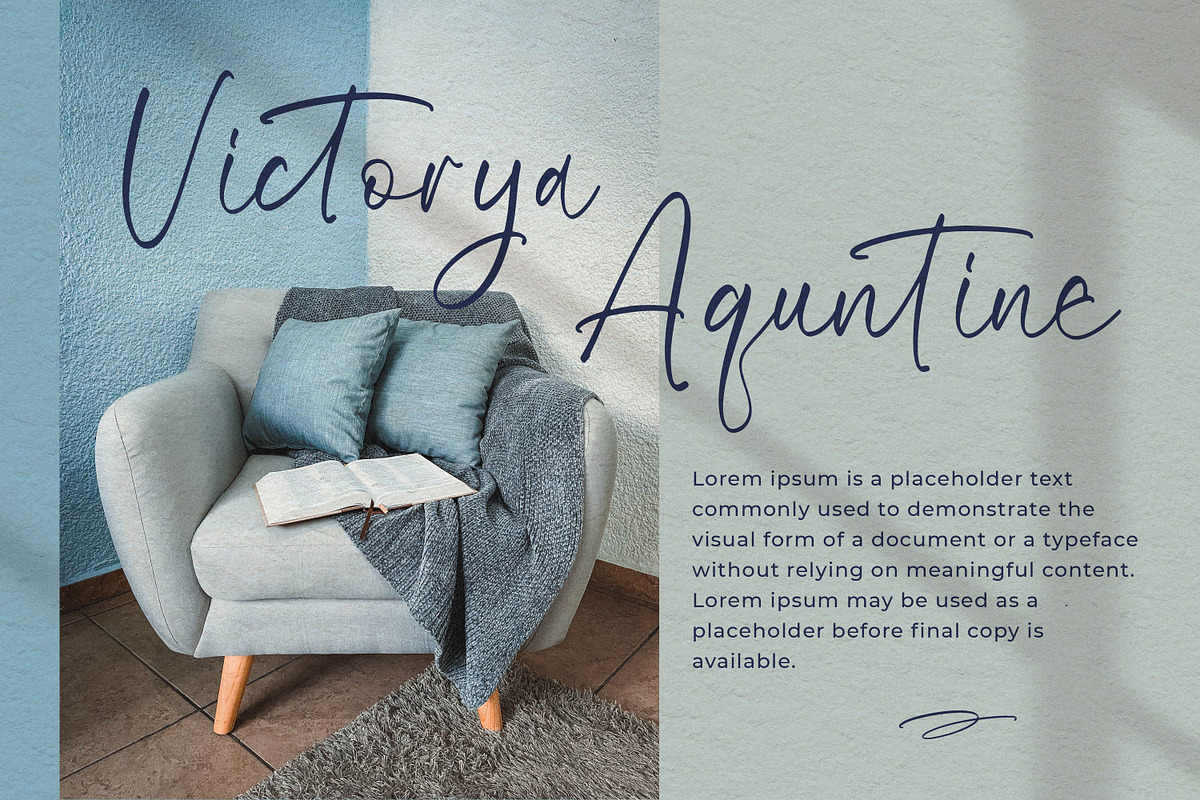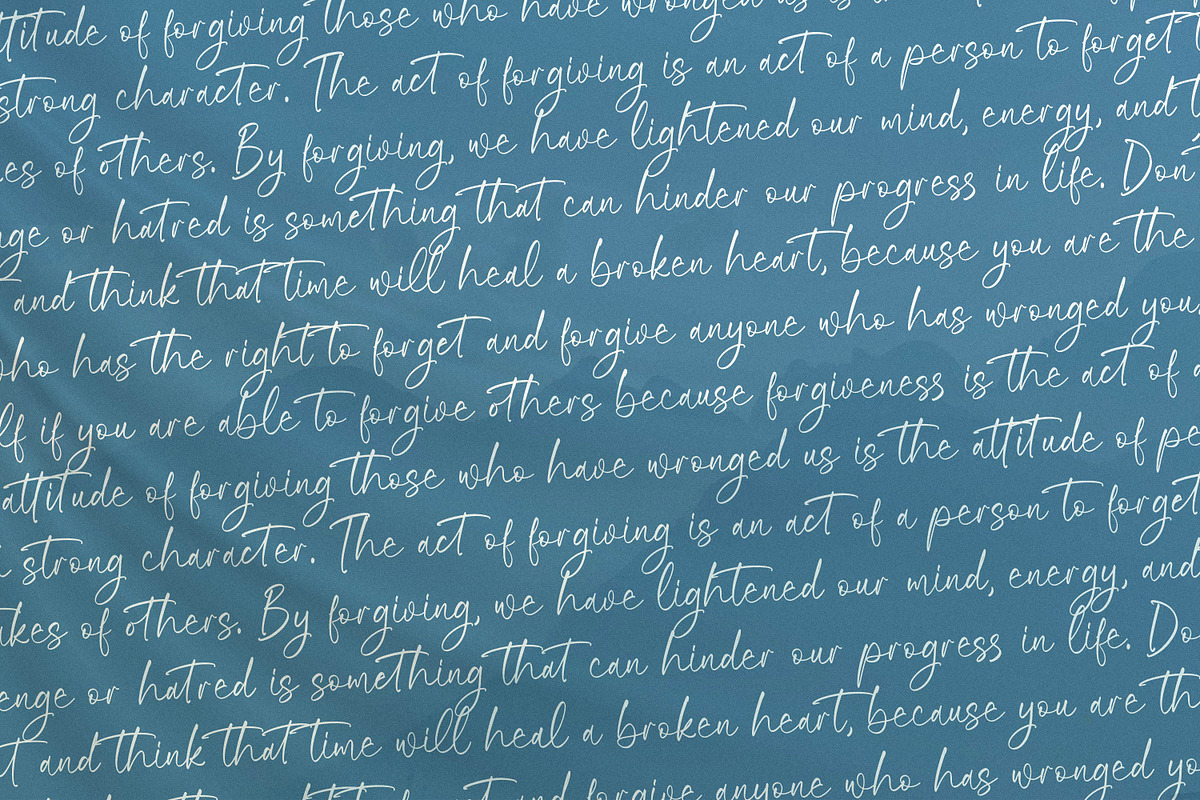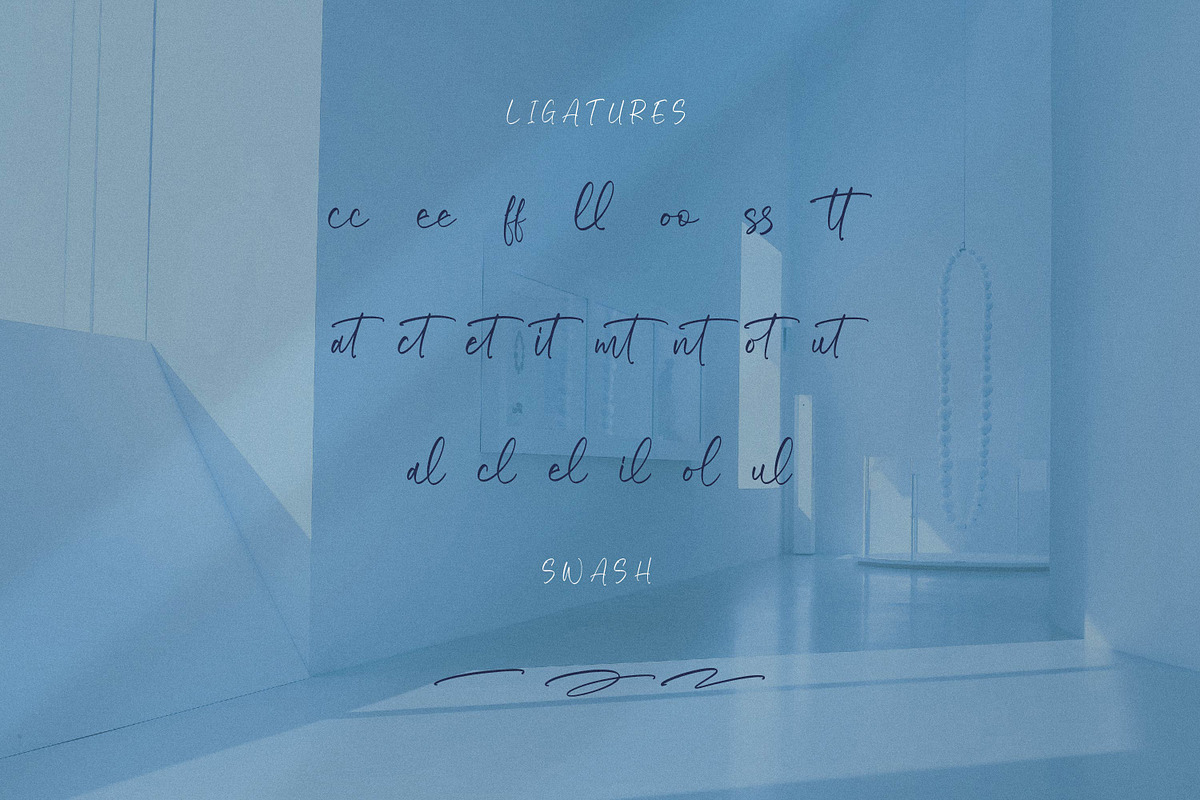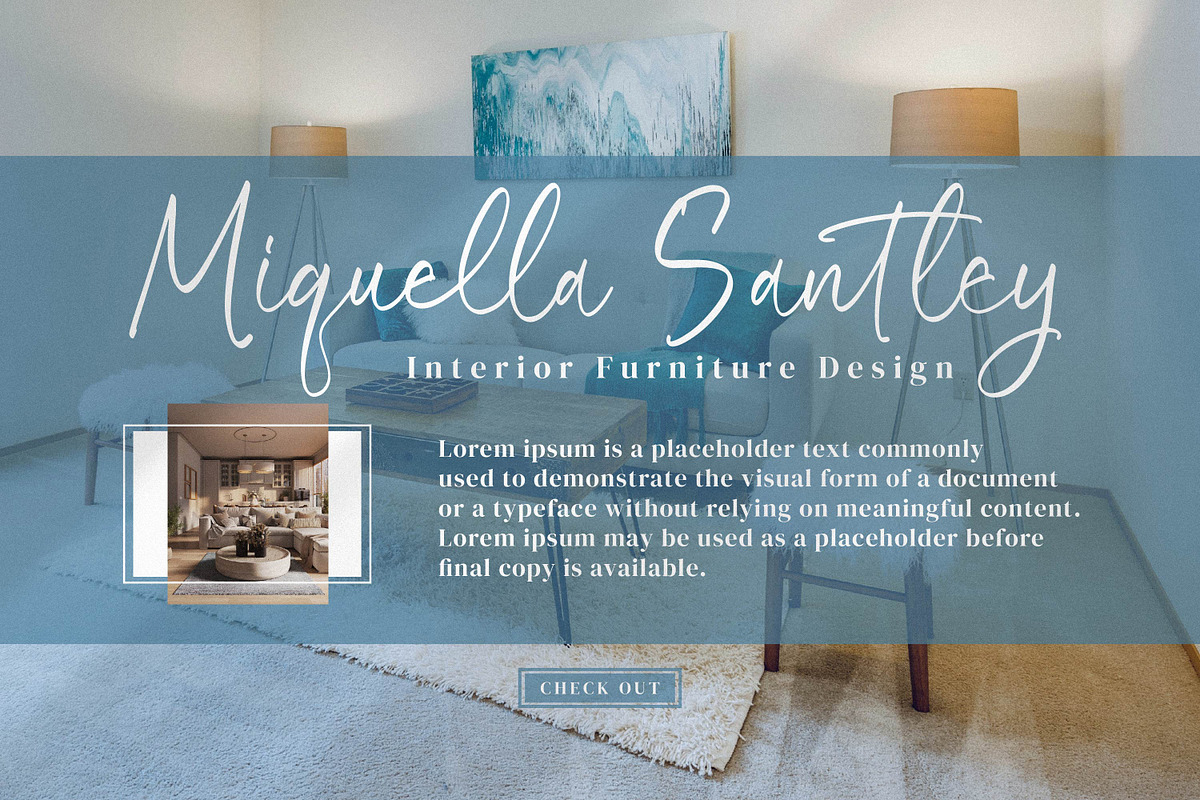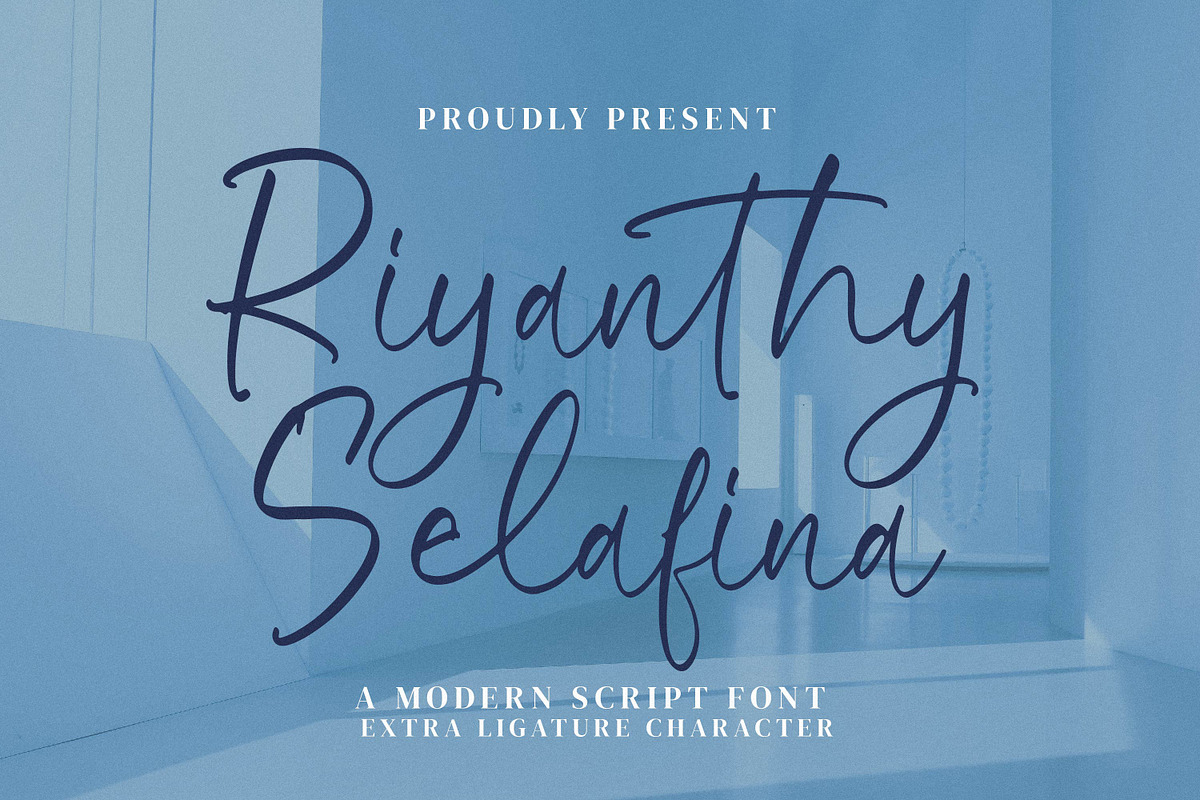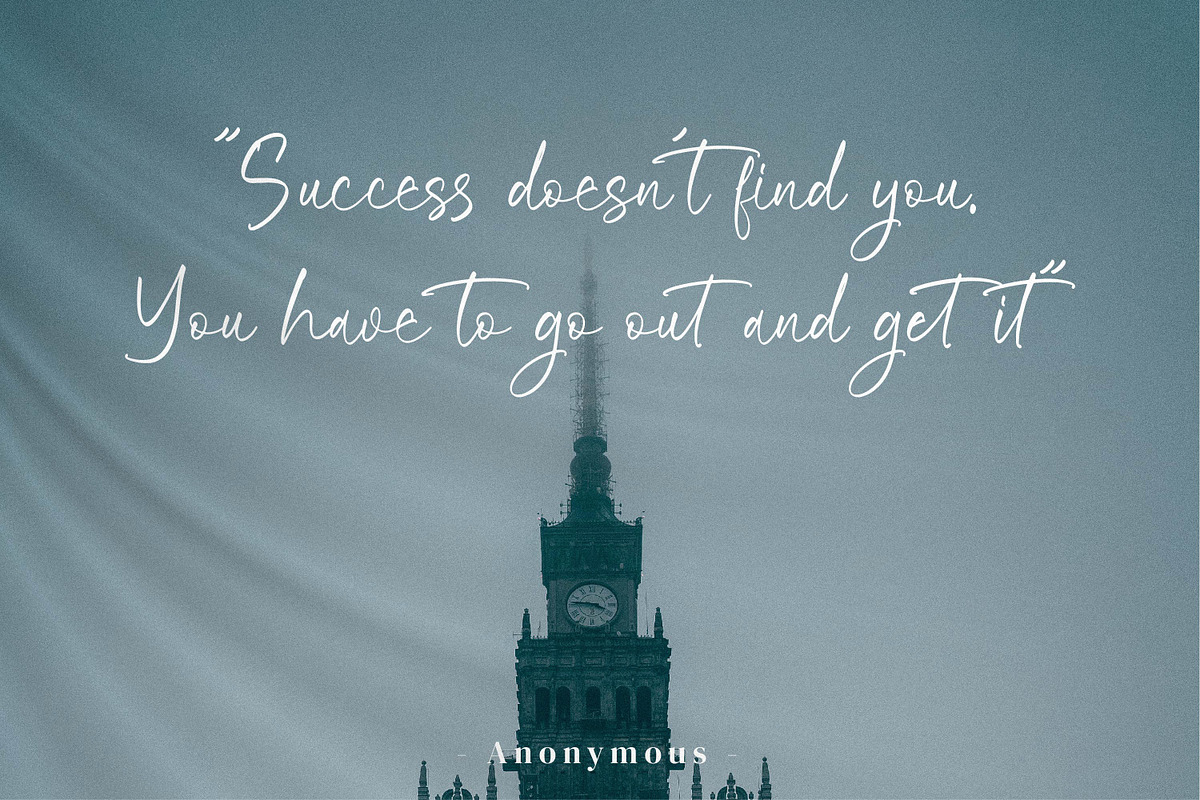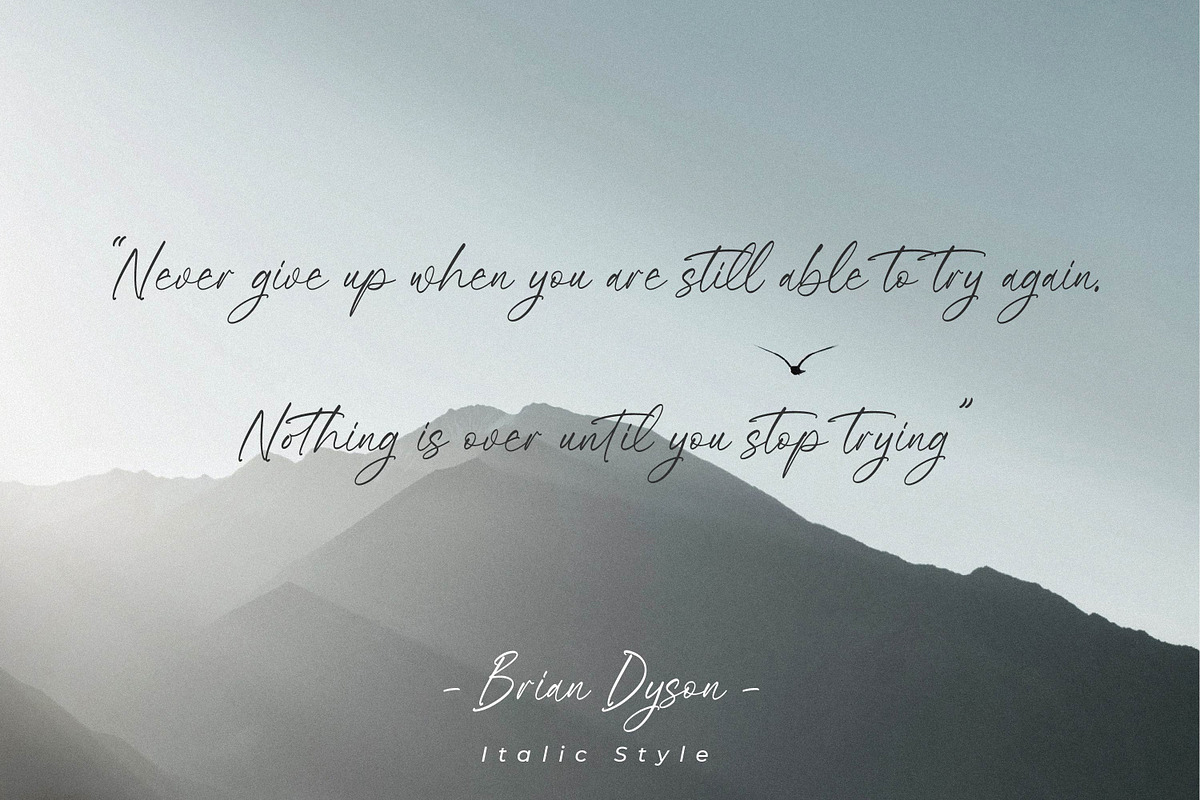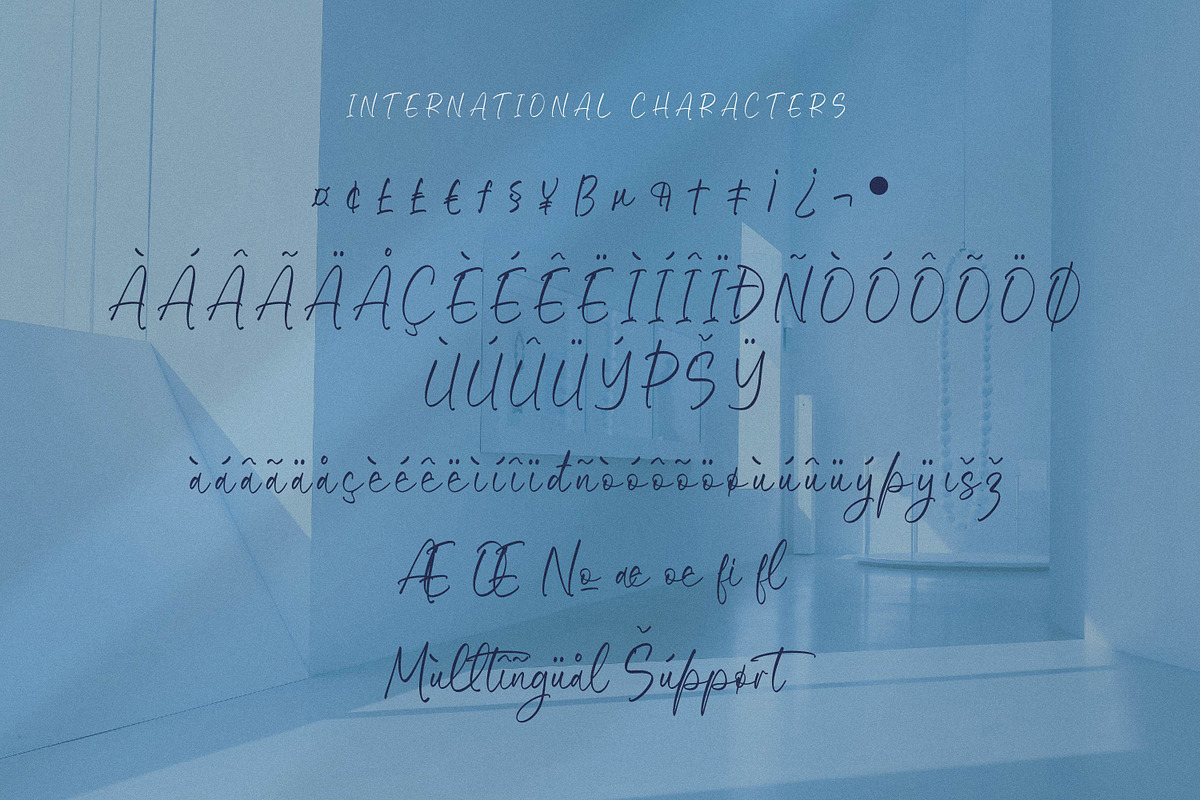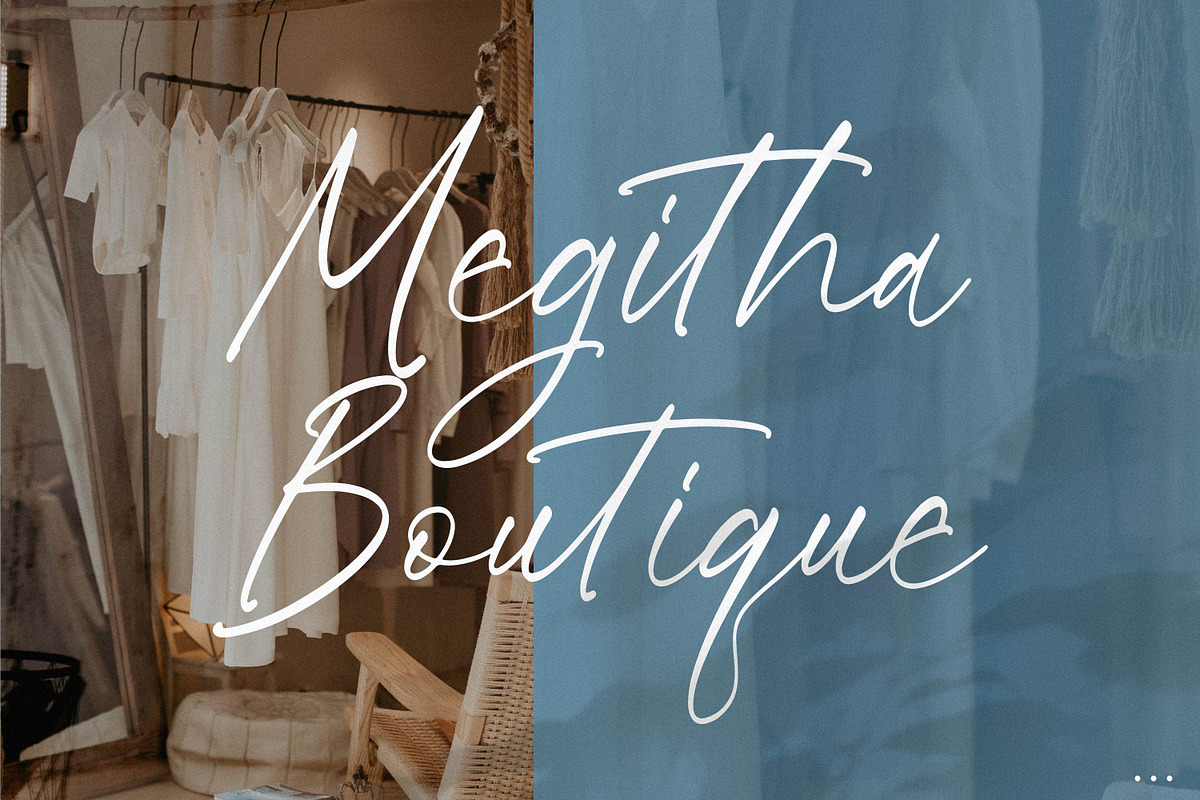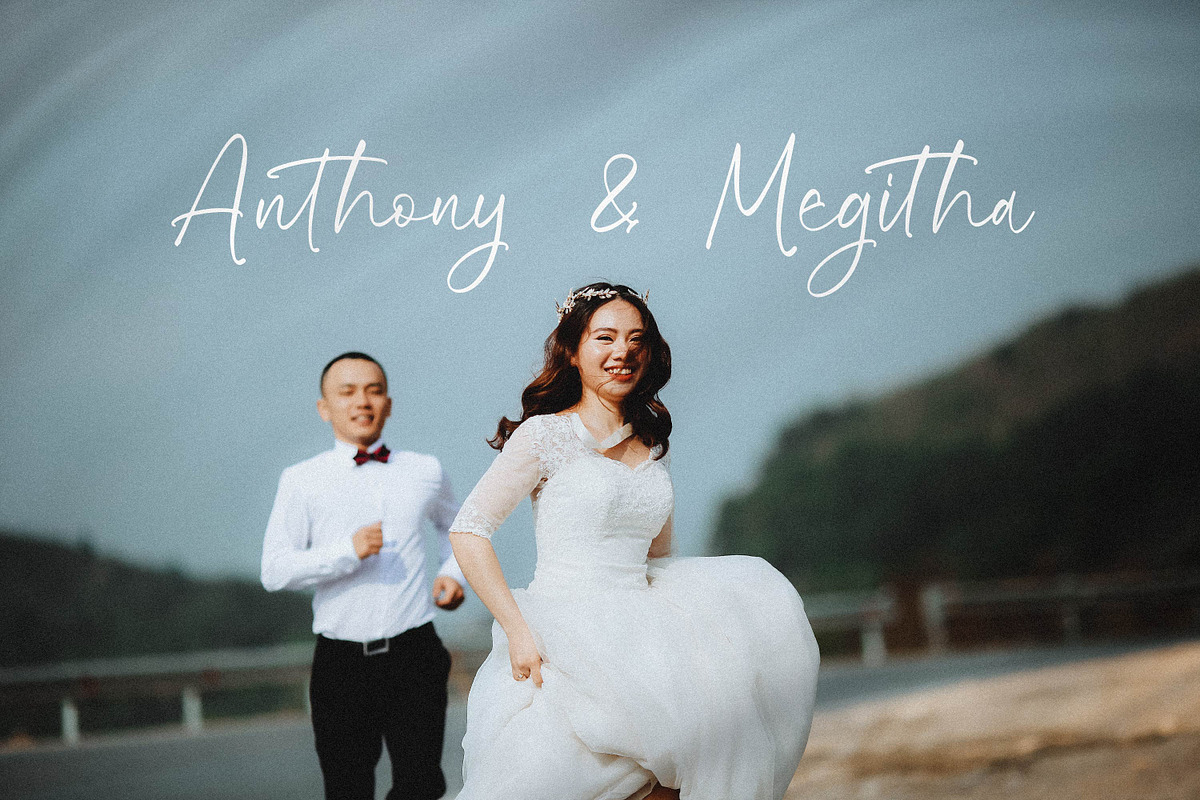
Riyanthy Selafina
Riyanthy Selafina - Modern Script Font, from Integritype Studio, is a premium Modern Script Font, perfect for any project like: logos, branding projects, homewares designs, product packaging, mugs, quotes, posters, shopping bags, t-shirts, covers books, business cards, invitation cards, greeting cards, labels, photography, watermarks, special events and all your other luxury projects that require a premium taste.
Ligatures, Alternatives & Swashes